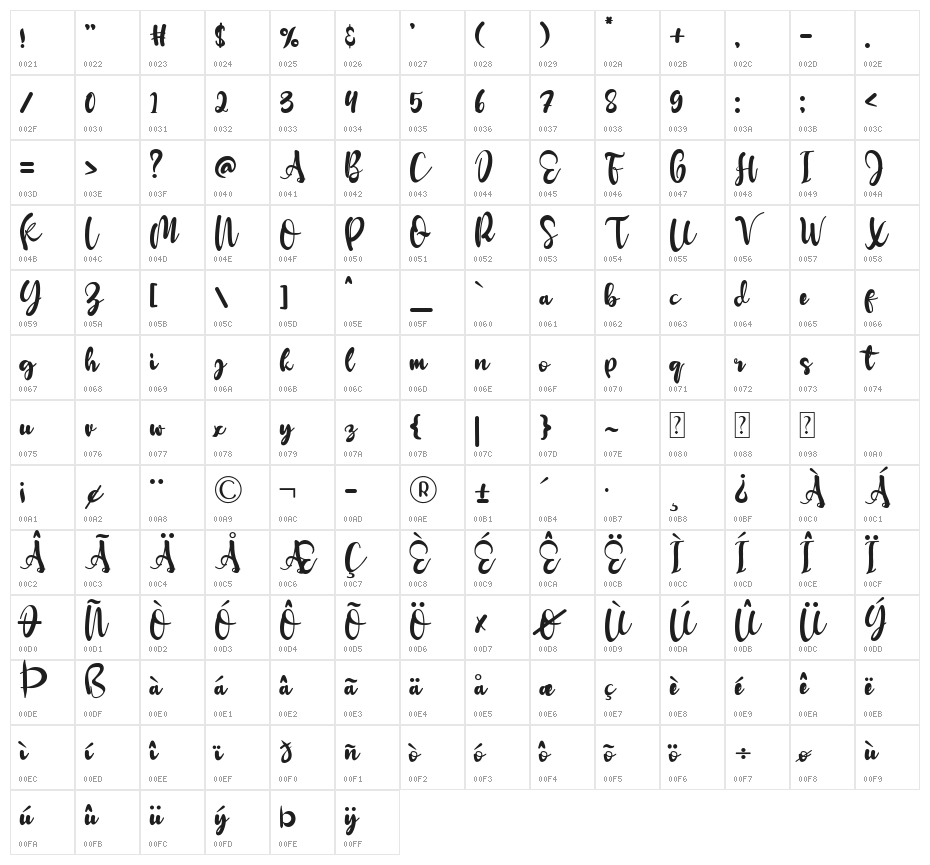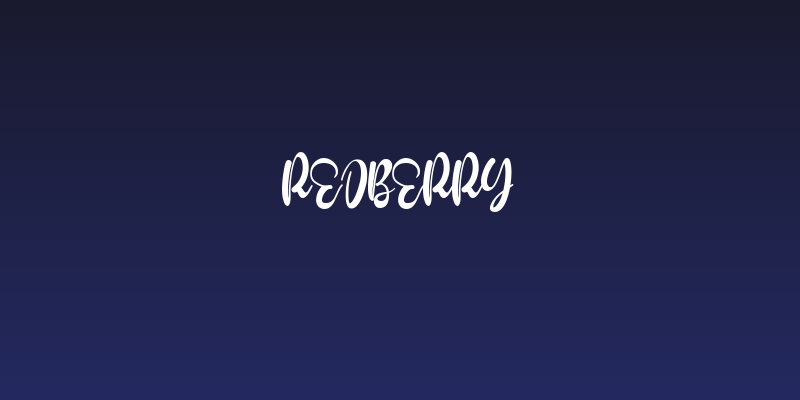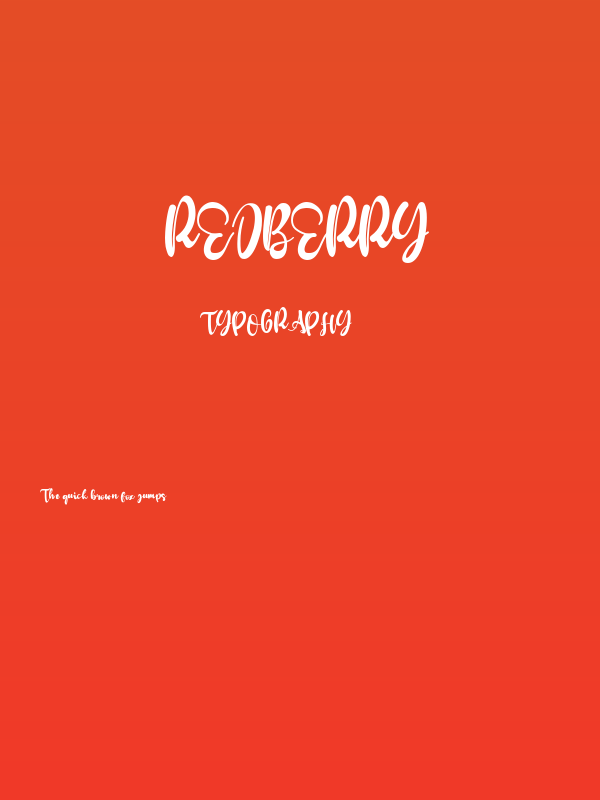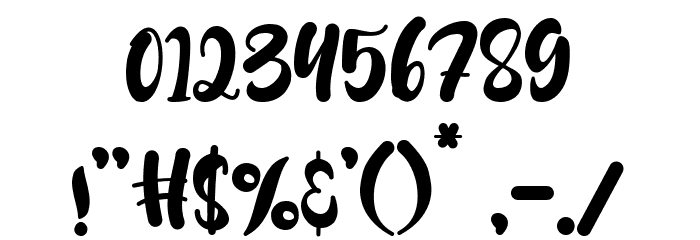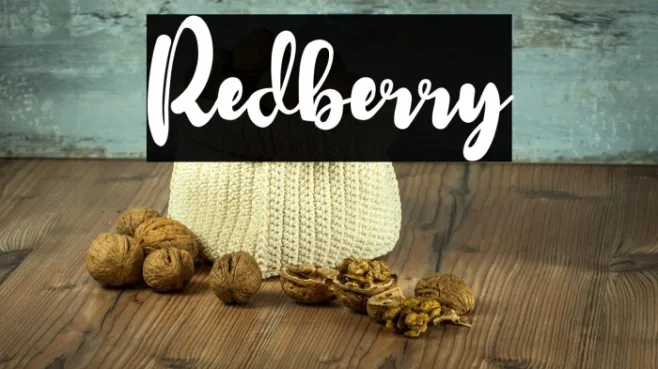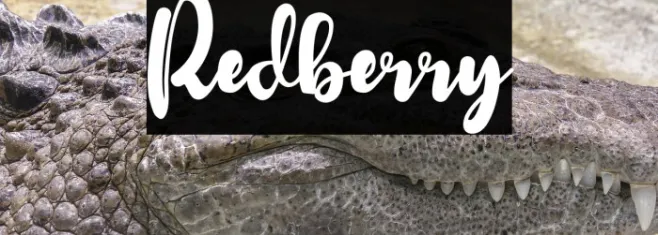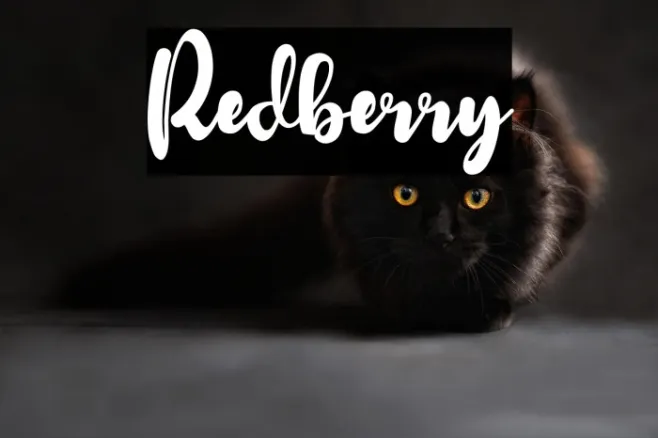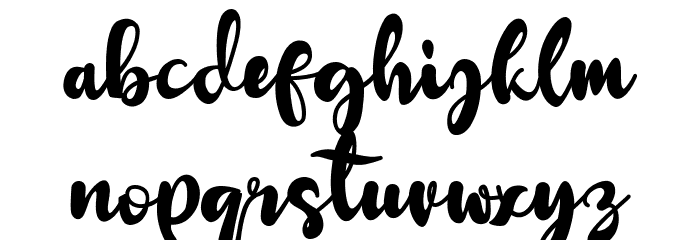
Redberry Font
Redberry Description
This font features a bold and expressive script style, characterized by its flowing, cursive letterforms that convey a sense of elegance and dynamism. The uppercase letters are particularly striking, with sweeping curves and a sense of movement that adds a lively touch to any text. The lowercase letters maintain this fluidity, ensuring a cohesive look throughout. The numerals and special characters are equally bold, maintaining the font's overall aesthetic. This font is perfect for projects that require a personal, handwritten feel, while still being bold enough to stand out.